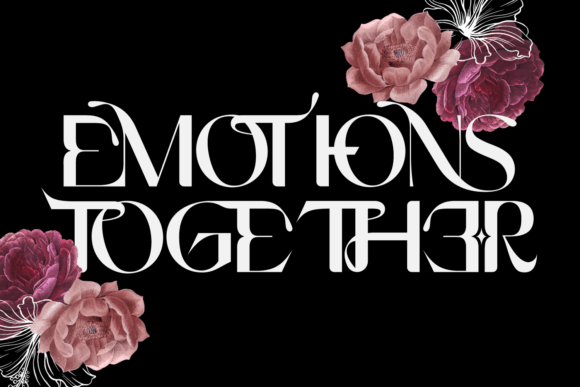
Introducing Emotions Together Font, a masterpiece created by the talented 177Studio. This elegant sans serif font is here to elevate your design game and captivate your audience like never before. With its simple letter shapes and playful ligatures, Emotions Together strikes the perfect balance between sophistication and creativity.
What sets Emotions Together apart is its exceptional legibility. No matter the size, this font guarantees optimal readability, allowing your message to shine through effortlessly. Whether you're working on editorial projects, logo design, clothing branding, product packaging, or magazine headers, Emotions Together is your secret weapon for creating stunning visuals.
But that's not all - Emotions Together is also a versatile font that adapts seamlessly to any context. Its adaptability makes it a dream come true for designers looking to make a lasting impact. Need a stylish text overlay for a captivating background image? Emotions Together has got you covered.
One of the highlights of Emotions Together is its extensive range of features. Built with OpenType technology, this font boasts 100 ligatures, alternate characters, numbers, and punctuation marks. This means that you have endless creative possibilities at your fingertips, allowing you to customize and personalize your designs with ease.
And let's not forget about international appeal. Emotions Together is not limited by language barriers. It fully supports multiple languages, making it the perfect choice for global brands and designers seeking to connect with diverse audiences.
Emotions Together Font is more than just a typeface - it's a catalyst for emotions. Its captivating charm and unique design will evoke a wide range of feelings in your audience, leaving a lasting impression. From elegance to playfulness, this font effortlessly embodies the essence of your brand and message.
Transform your design journey with Emotions Together Font - where creativity meets legibility, and emotions come alive.